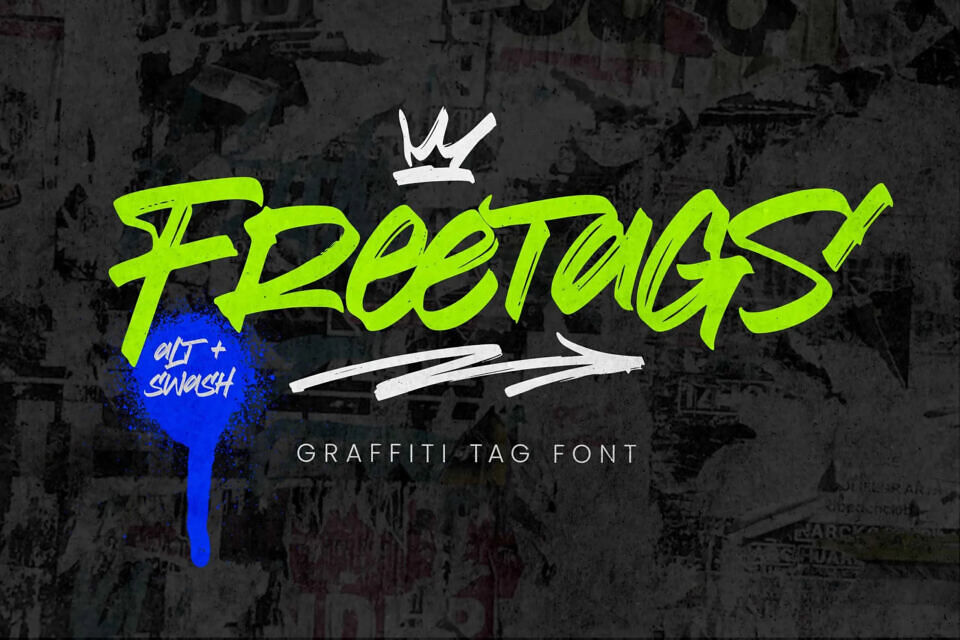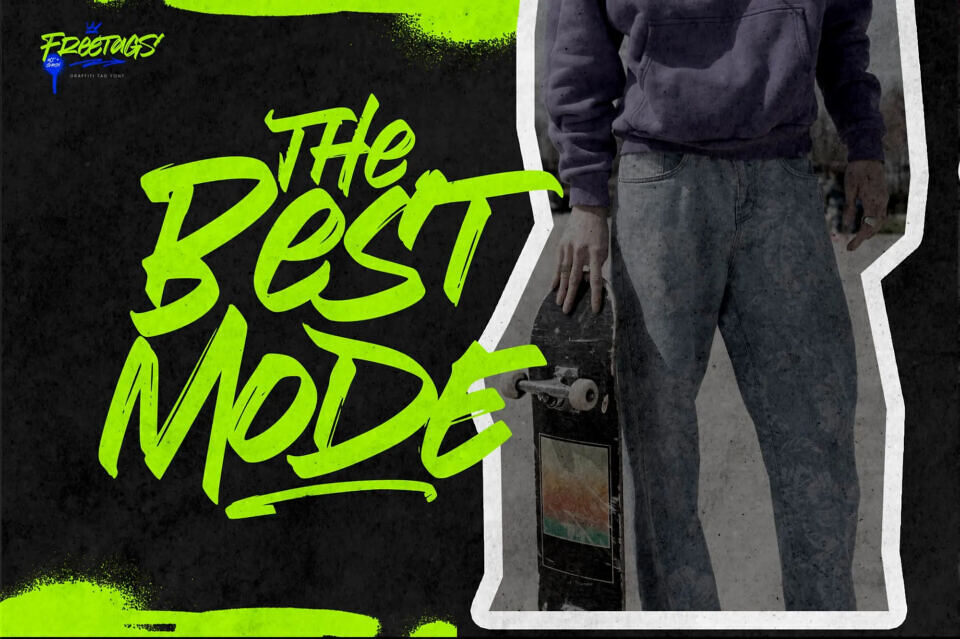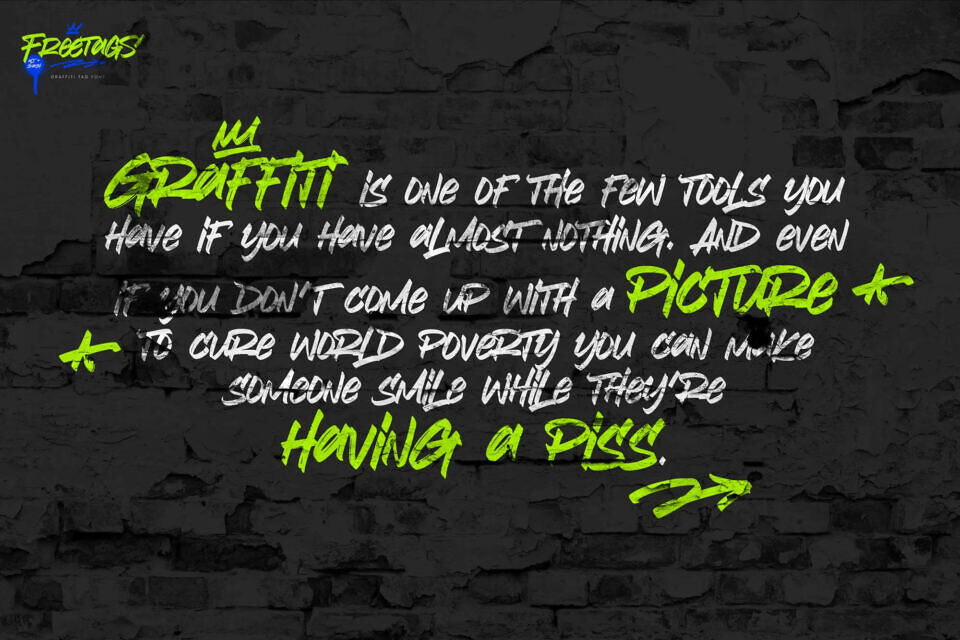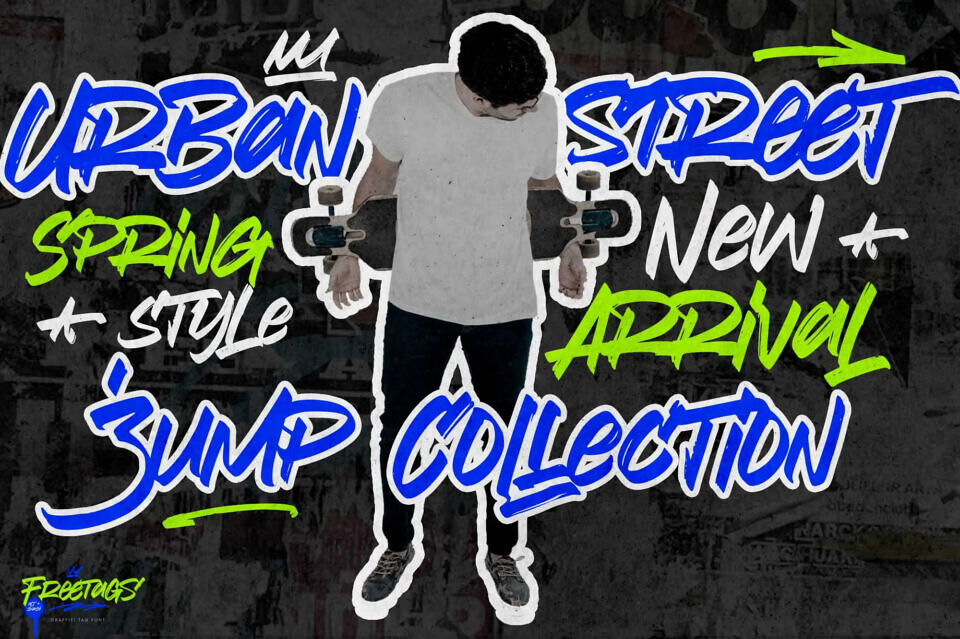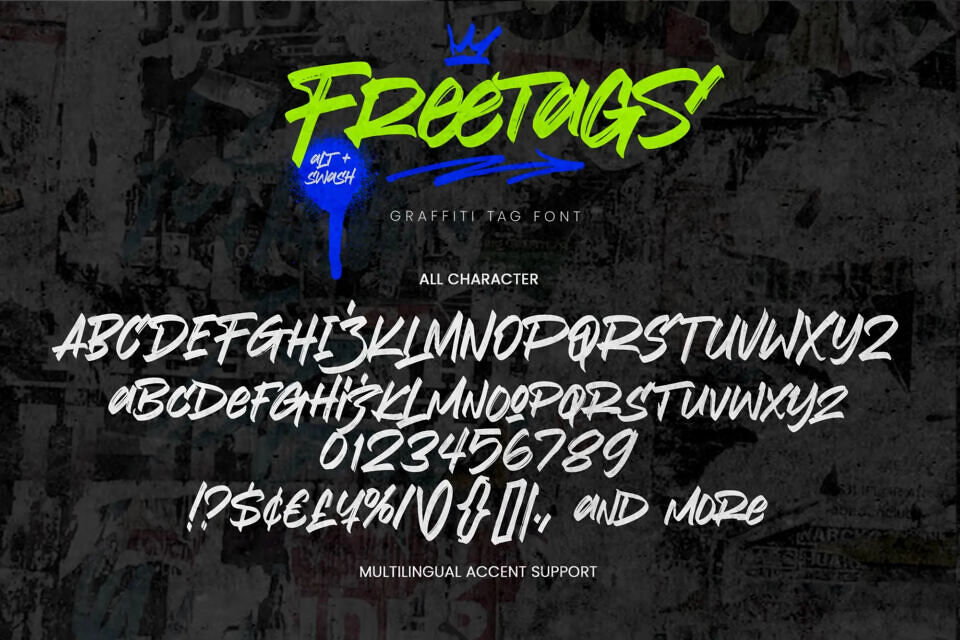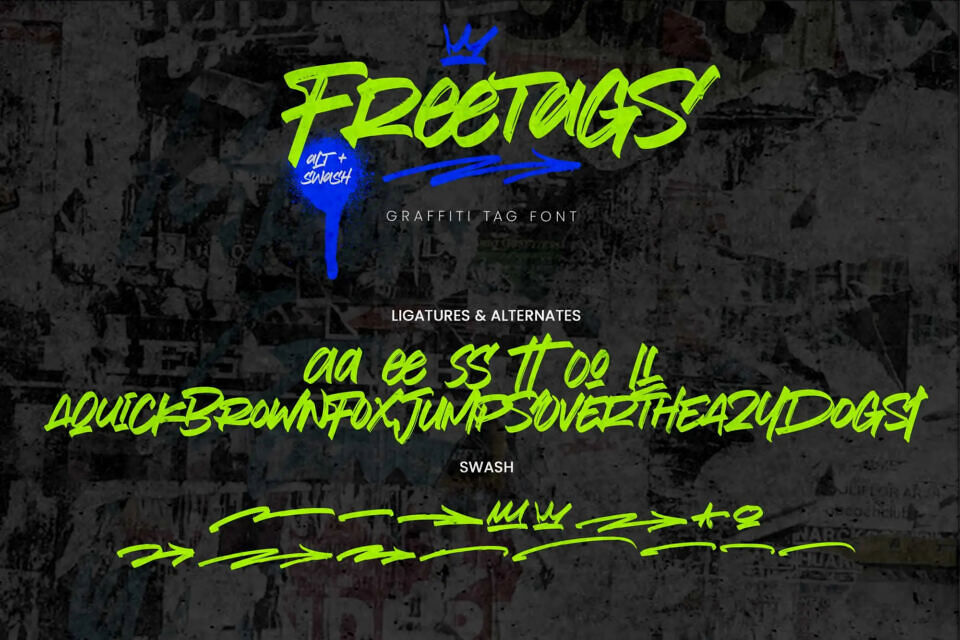
Freetags font features bold, graffiti-style tags, ideal for making a statement. It’s suitable for various designs, including logos, posters, packaging, branding, ads, stationery, labels, watermarks, and quotes, allowing you to add a strong touch to your creations.